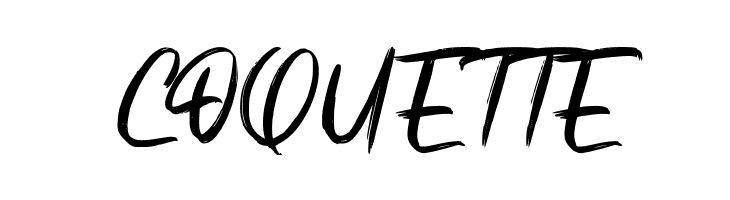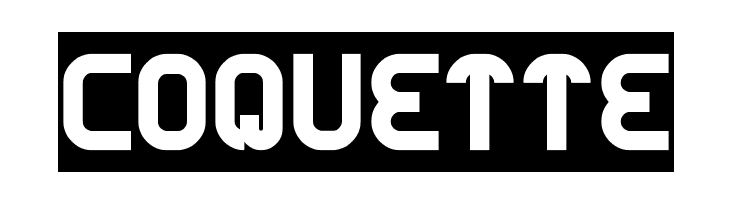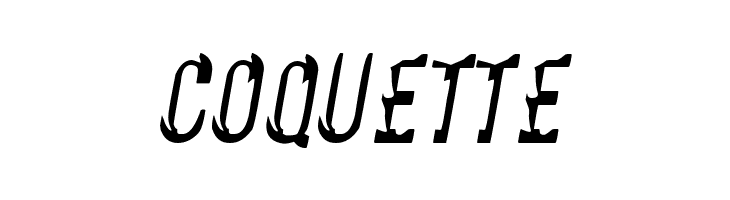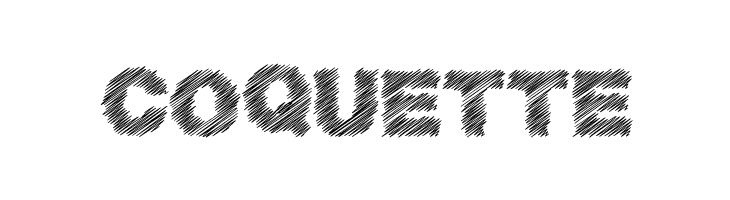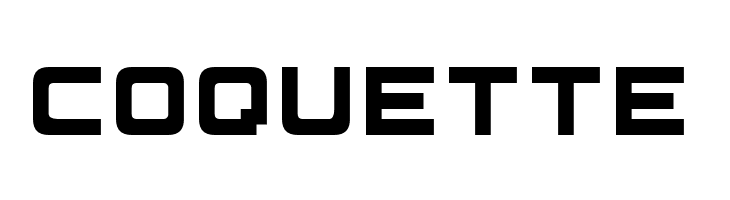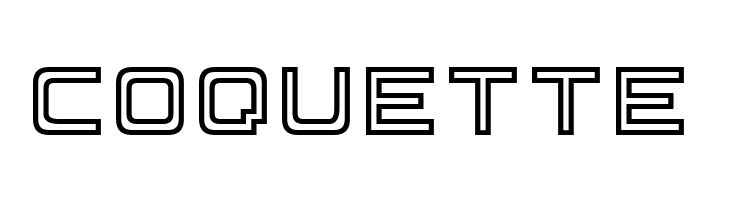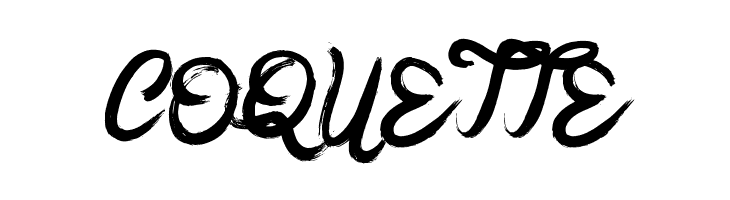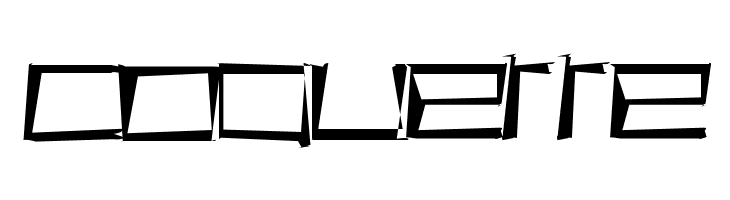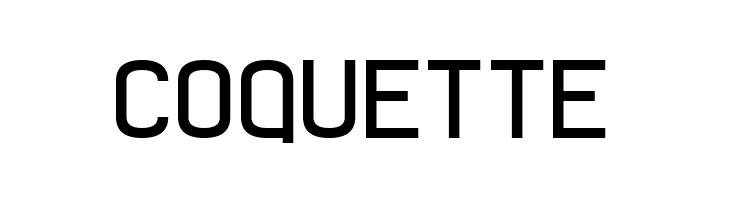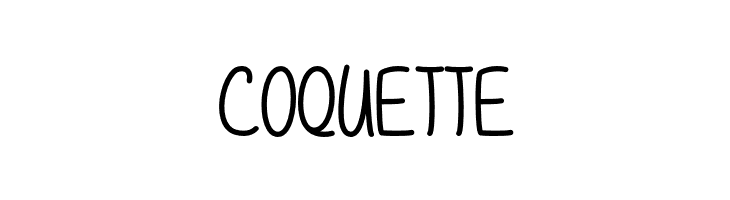
• basic Italic
A bold, italic font with a modern and dynamic style.
• Basic Light
A clean, minimalist font with thin, uniform strokes and a modern aesthetic.
• Basic Sans Serif 7
A clean, modern sans-serif font with consistent stroke width and excellent readability.
• Basic Square 7
A geometric, square-based font with a modern, outlined design.
• Basic Square 7 Solid
A geometric, block-like font with uniform stroke widths and a modern appearance.
• basic-Inverse
• Basic-Trip
A playful, bold, and hand-drawn style font with rounded, whimsical characters.
• Basica 2.0
A bold, geometric font with a futuristic and digital aesthetic.
• Basica 2.0
A bold, geometric font with a futuristic and industrial aesthetic.
• Basica Cartoon
• Basica Future
A futuristic, geometric font with rounded edges and bold uniformity.
• Basica industrial
A bold, industrial font with a textured, mechanical appearance.
• Básica-Unicode Regular
A geometric, monospaced font with a modern, digital aesthetic.
• Basicaline
A clean, modern sans-serif font with geometric uniformity.
• BasicallyYes
A playful, casual handwritten font with smooth curves and a friendly appearance.
• BasicChrome
A bold, slanted font with sharp edges and a retro-futuristic style.
• BasicHand
A playful, handwritten font with bold strokes and a casual, informal style.
• BasicHeader
A playful, hand-drawn font with a whimsical and bold style.
• Basico 1983 Regular
A bold, high-contrast font with sharp angles and modern flair.
• Basics Serif Free Regular
A classic serif font with elegant, sharp lines and traditional details.
• BasicScratch
A scratchy, hand-drawn font with dynamic texture and bold style.
• BasicSharpie